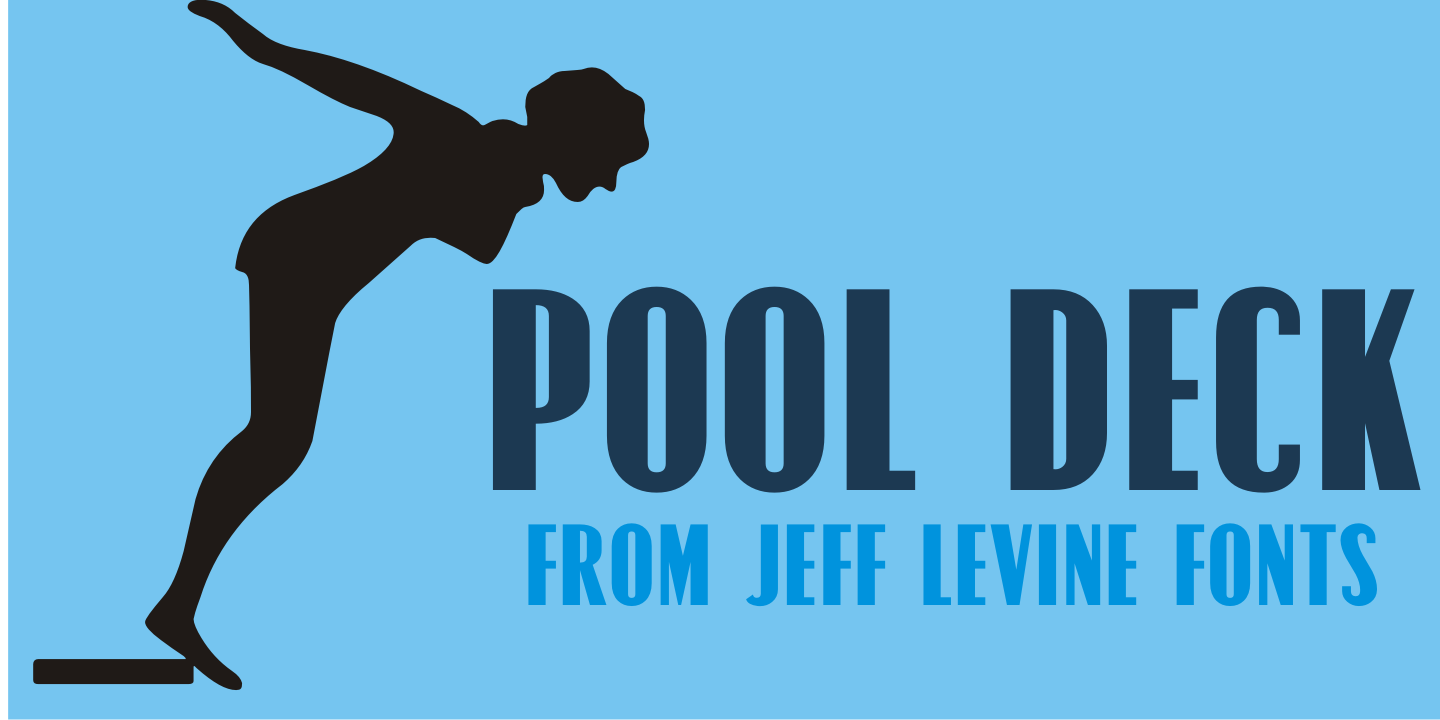
Pool Deck JNL Font is perfect for swimming pool companies, luxury resort branding, aquatic center signage, poolside bar menus, summer party invitations, deck construction businesses, water recreation marketing, tropical hospitality venues, and any project requiring typography with refreshing aquatic leisure and sun-soaked relaxation aesthetics.
What makes Pool Deck JNL Font exciting is its aquatic leisure that captures the carefree spirit and refreshing relaxation of poolside living with letterforms that seem to shimmer with the reflected light of crystal-clear water and the warm comfort of sun-drenched summer afternoons. This inviting typeface embodies the perfect balance of luxury and relaxation with clean construction that mirrors the sleek lines of modern pool design and the effortless elegance of sophisticated outdoor living spaces. The font's poolside character and leisure sophistication make it perfect for brands celebrating water recreation, outdoor luxury, and the timeless appeal of poolside paradise.
The Pool Deck JNL Font family includes regular weight with complete uppercase and lowercase alphabets, numerals, punctuation marks, and aquatic leisure elements. The font maintains consistent poolside elegance throughout all letterforms while ensuring excellent readability for both refreshing headlines and relaxing text applications in hospitality and recreation contexts.
Whether you're designing for pool contractors, creating resort marketing materials, or developing aquatic recreation branding with poolside aesthetics, Pool Deck JNL Font Free Download brings unmatched leisure sophistication and aquatic charm to your projects. This refreshing typeface transforms ordinary text into inviting expressions of poolside luxury that celebrate the joy of water recreation and the peaceful satisfaction of sun-soaked relaxation. The font's aquatic character makes it ideal for resorts, pool companies, and leisure hospitality brands. Download this exceptional font today and bring the refreshing elegance of poolside living to your design projects with authentic aquatic sophistication and deck-side luxury charm.